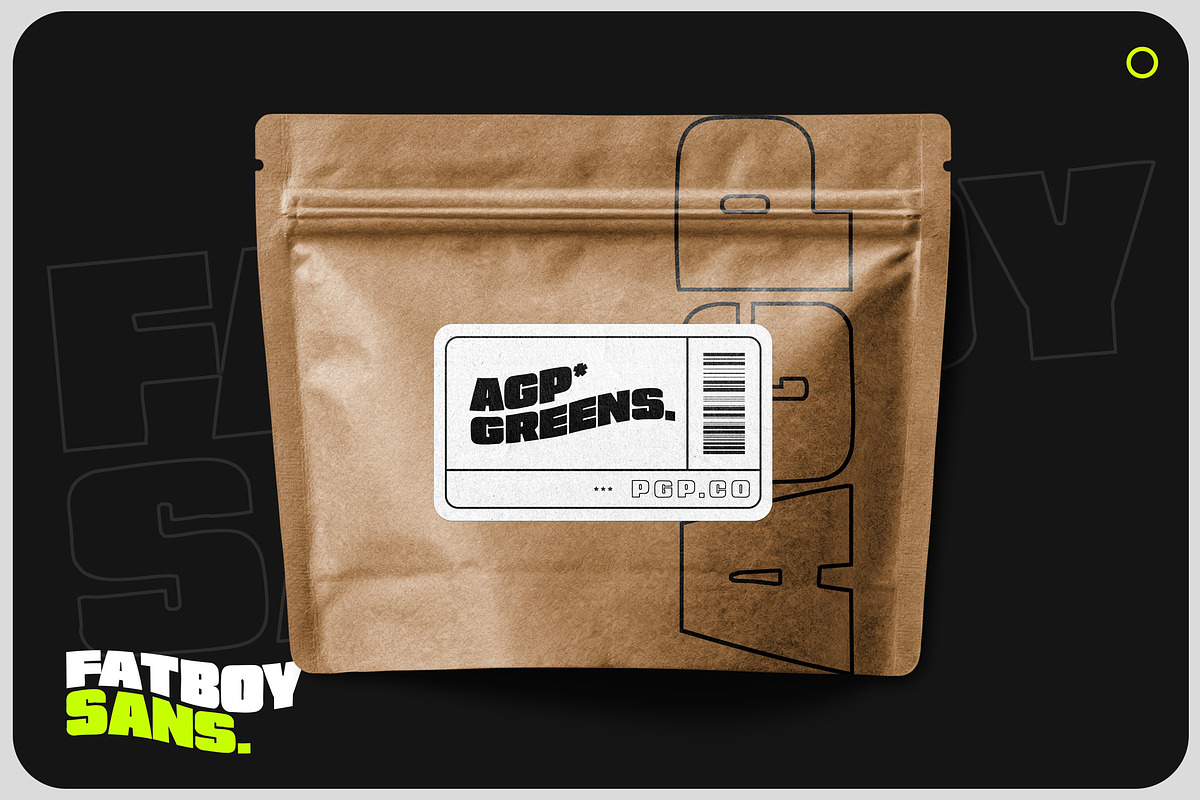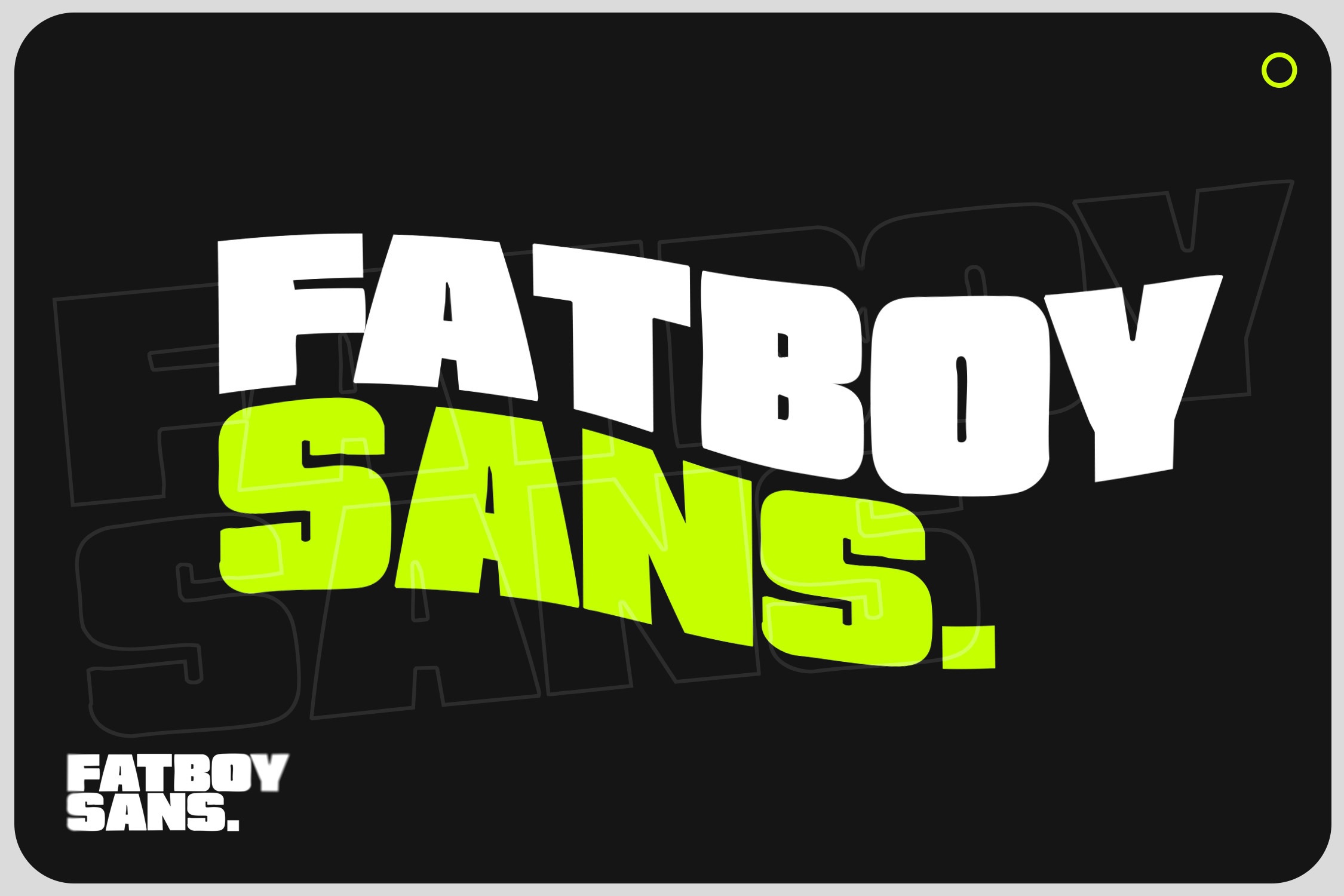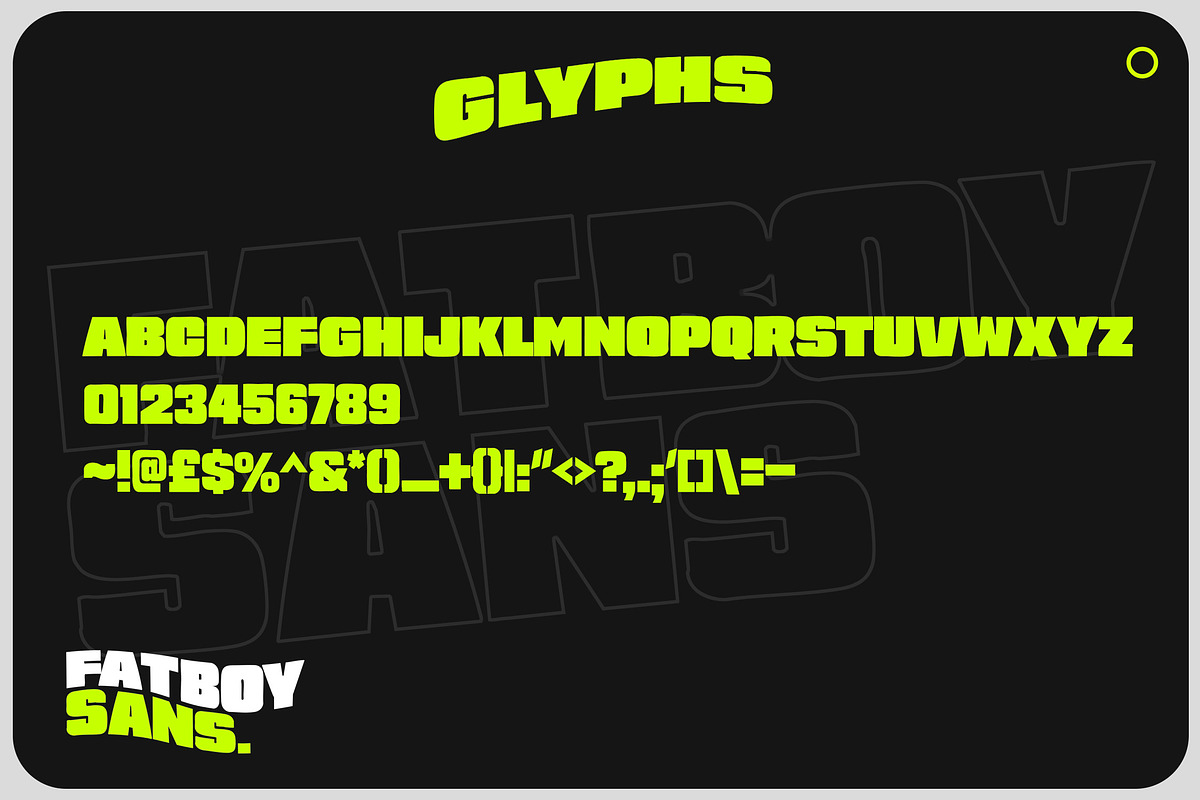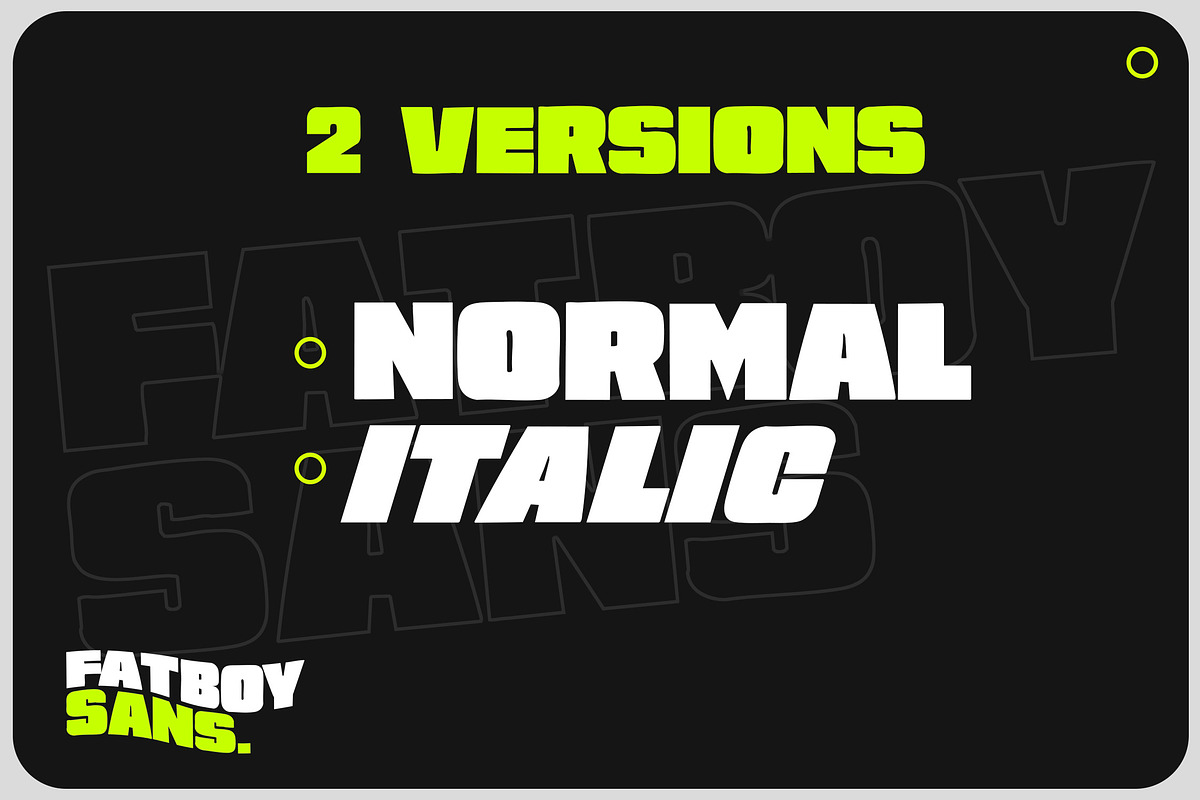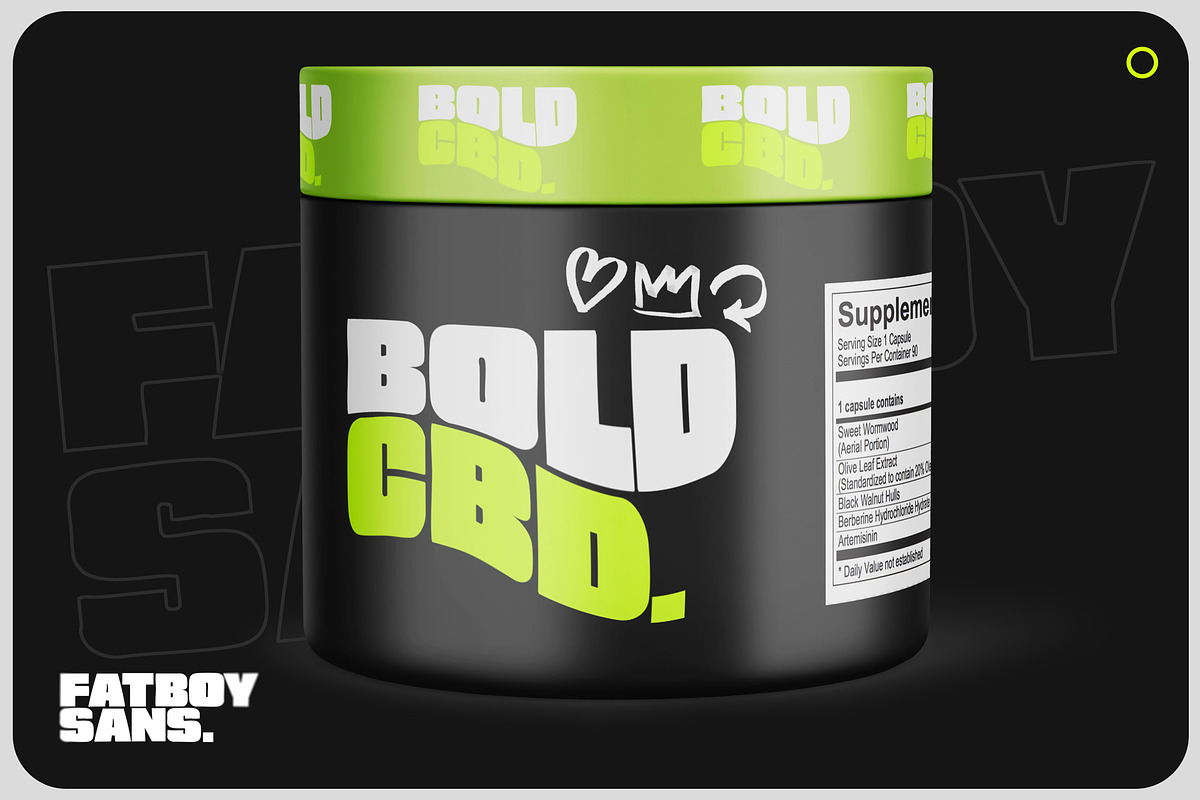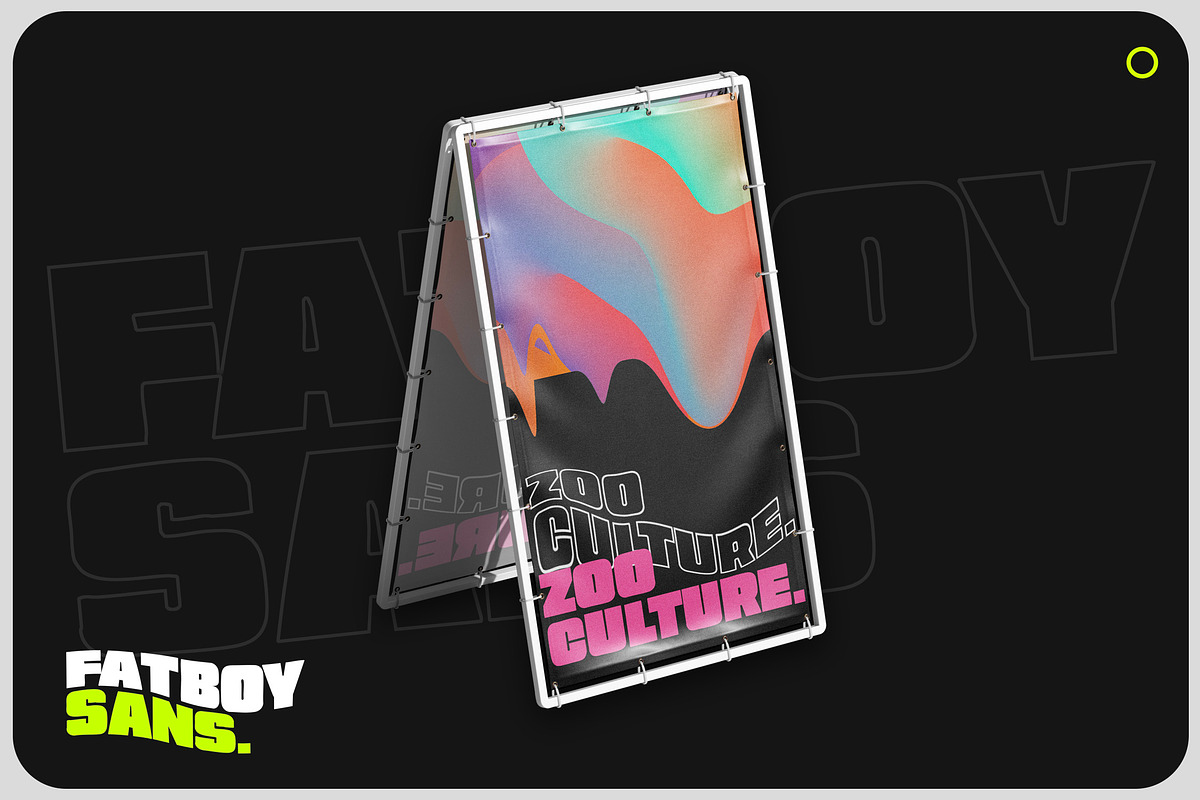
Fatboy Sans - Bold Display Font
Introducing Fatboy Sans - A Bold, Fat, Chunky Display Font
This font is absolutely perfect for bold display pieces, print work and packaging, digital artwork and so much more. The square, fat glyphs have a close, tight kerning, and really suits strong branding pieces.